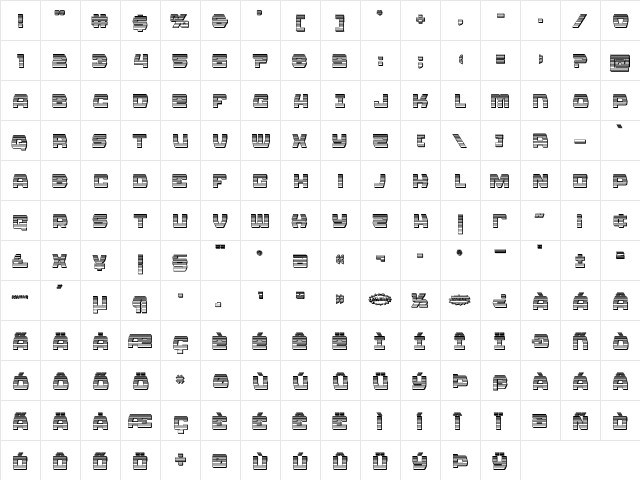
Olympic Carrier Chrome Regular
Design Context for Olympic Carrier Chrome Typeface
Olympic Carrier Chrome takes a measured approach to typography — its balanced proportions and neutral character make it a reliable workhorse for both digital and print work.